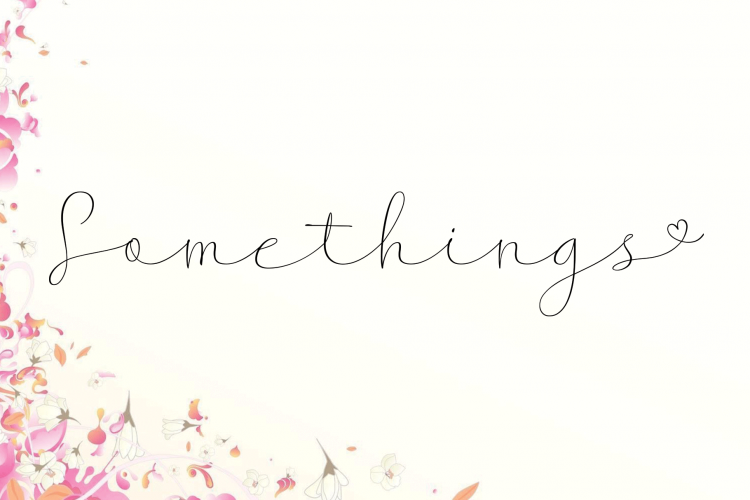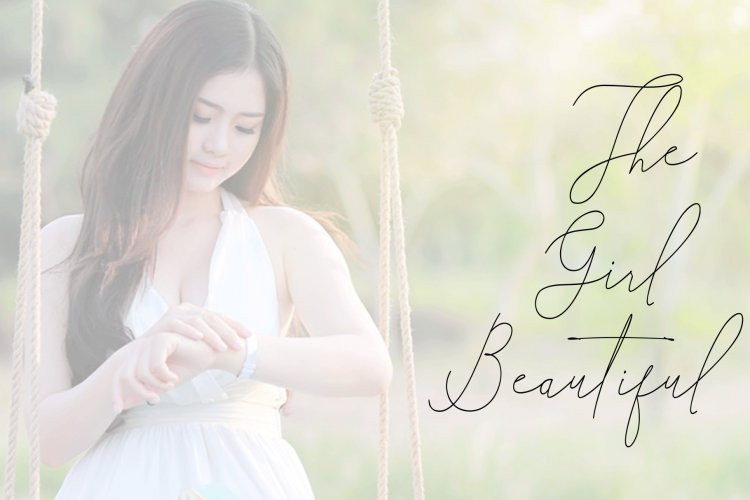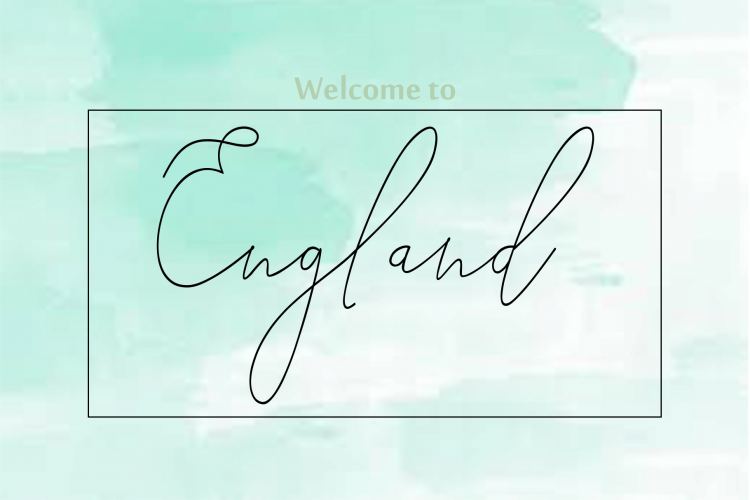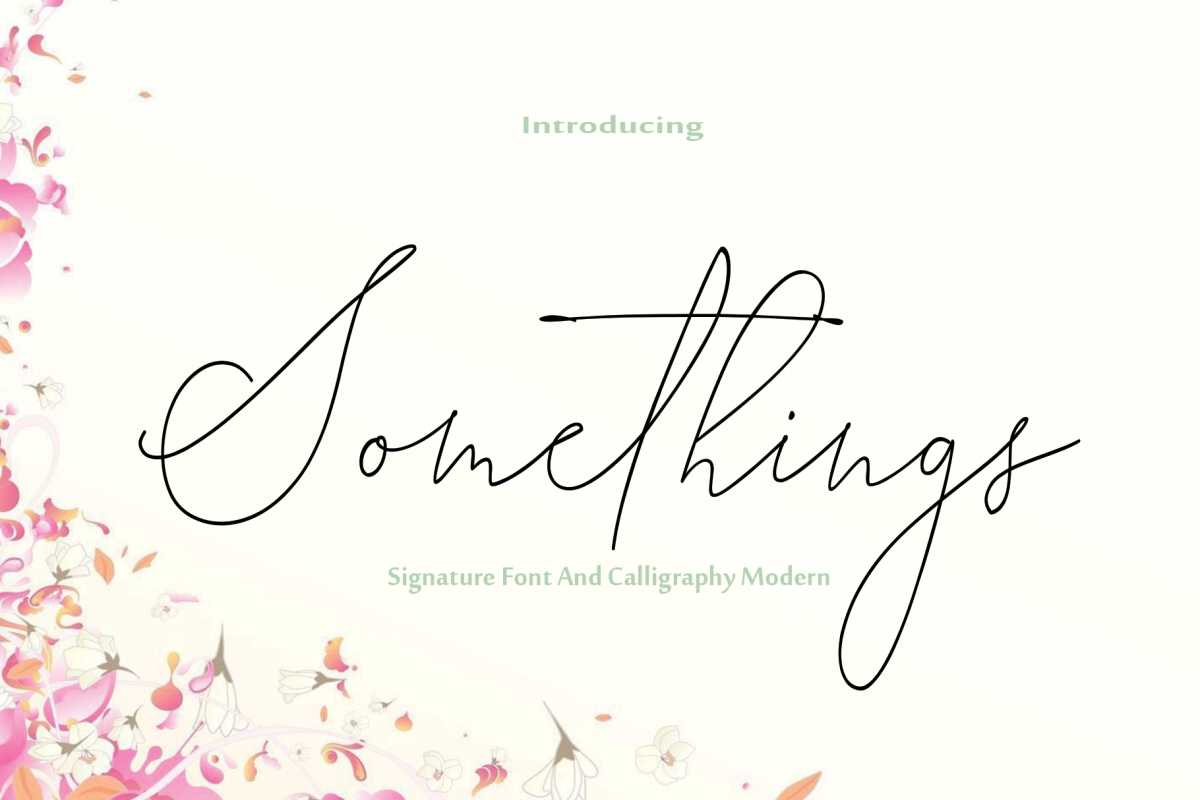
Somethings Font
Somethings a work that is purely a result of handwriting, has a natural characteristic. this is perfect for invitations, signatures, blogs, social media, business cards, product brands.Wetting has Stylistic standard, Stylistic Alternate, Stylistic Sets and ligatures. and includes uppercase and lowercase letters, numbers and punctuation marks.The Features of this fonts is;